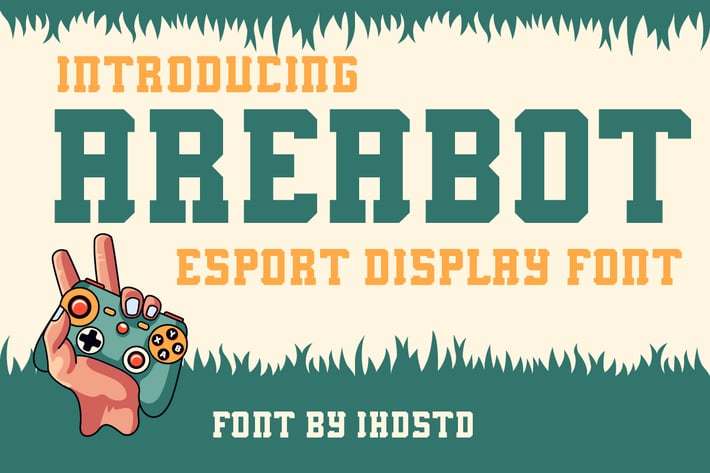
Areabot Esports Display Font
Areabot Esport Display is perfect for most all aspects of graphic design, from creating a unique display layout, a quirky logo design and even long-form content. Download now and go get adventurous!